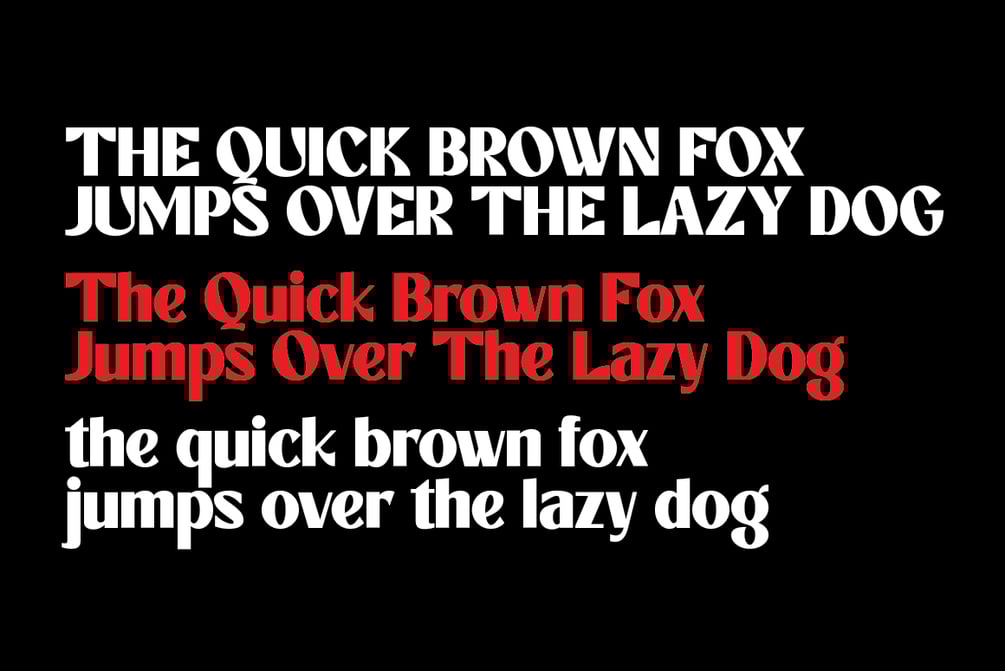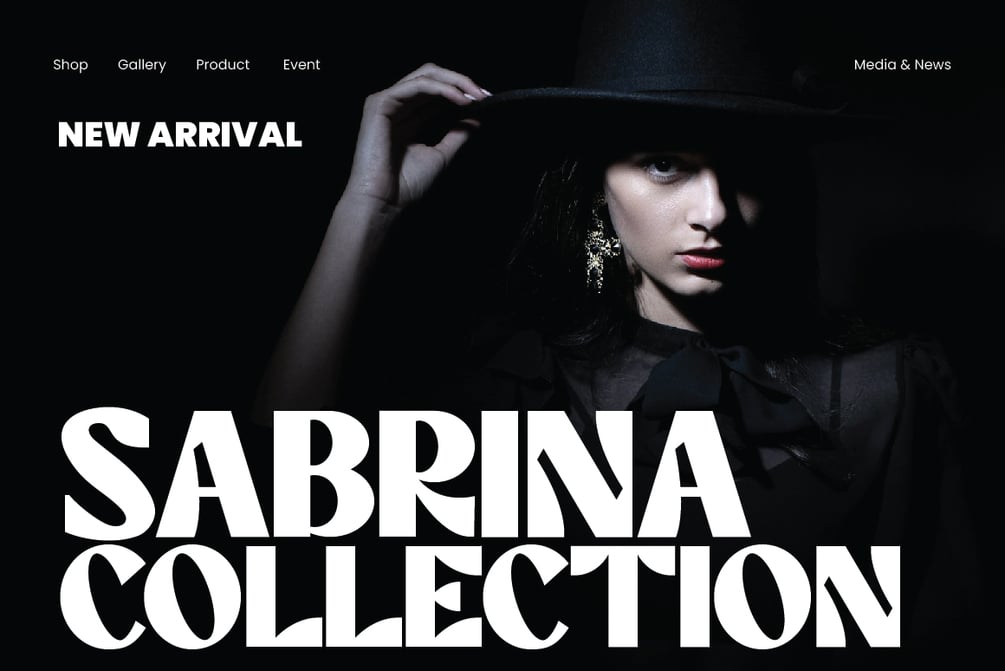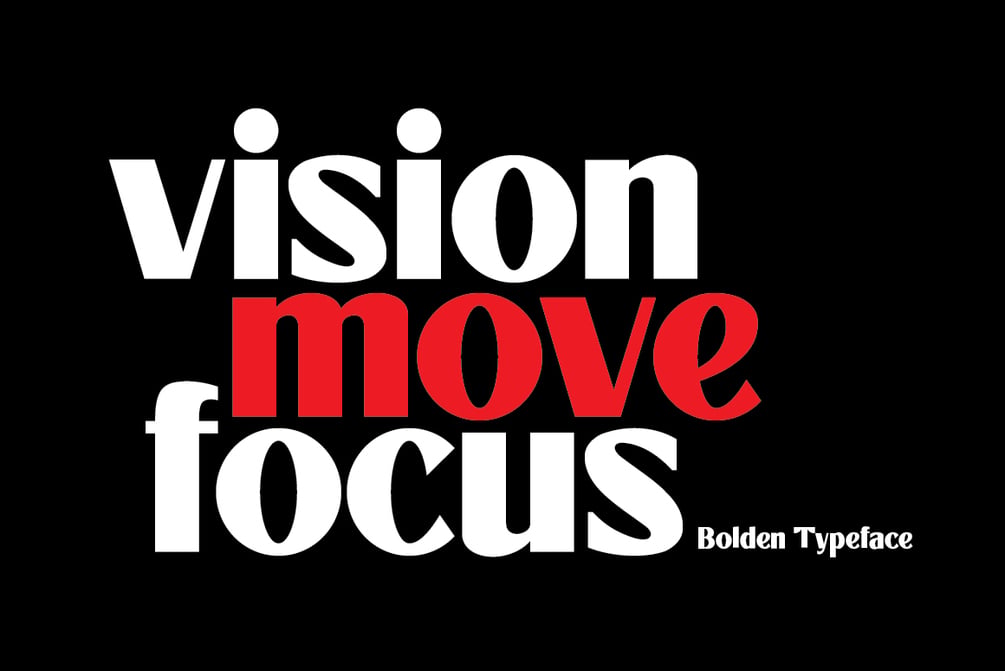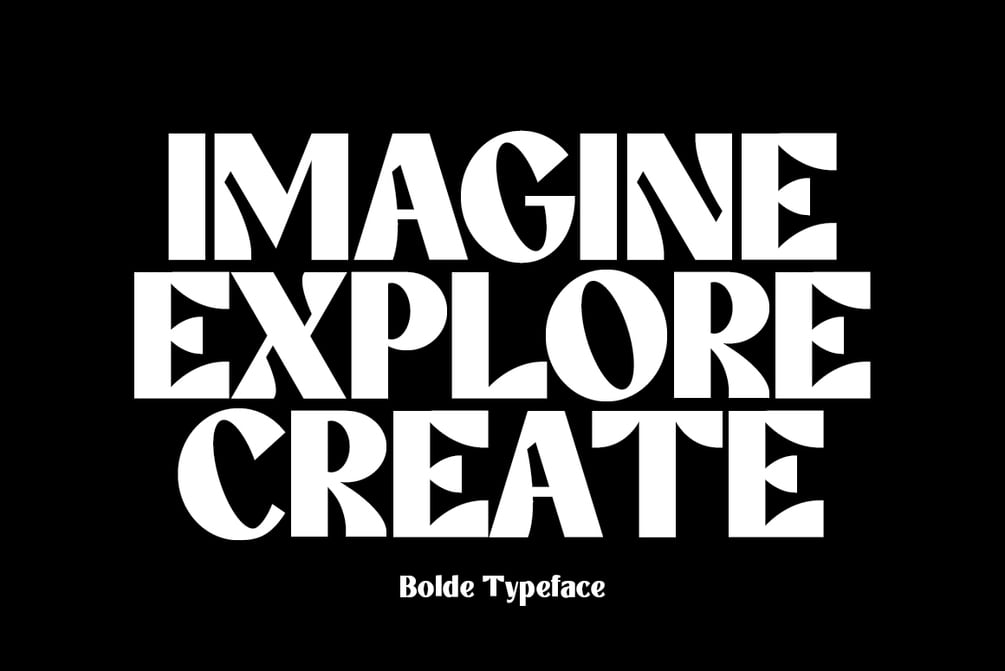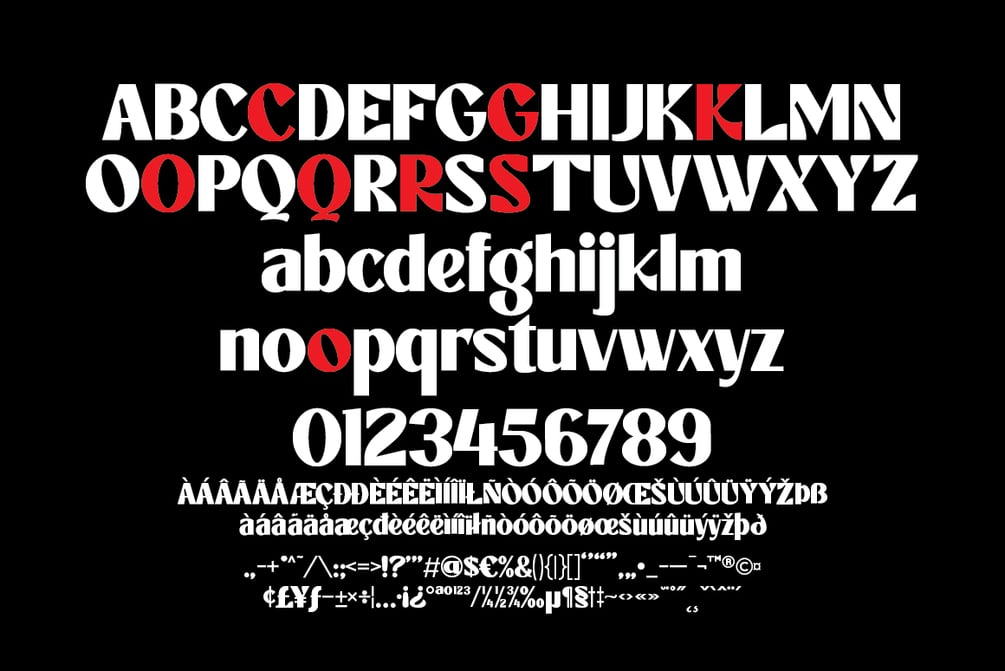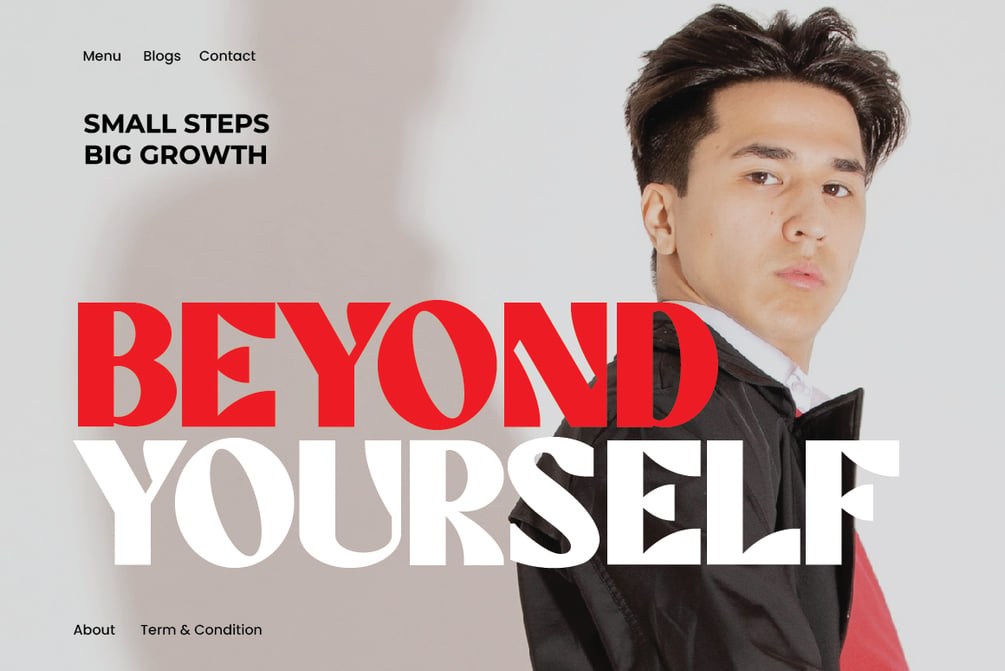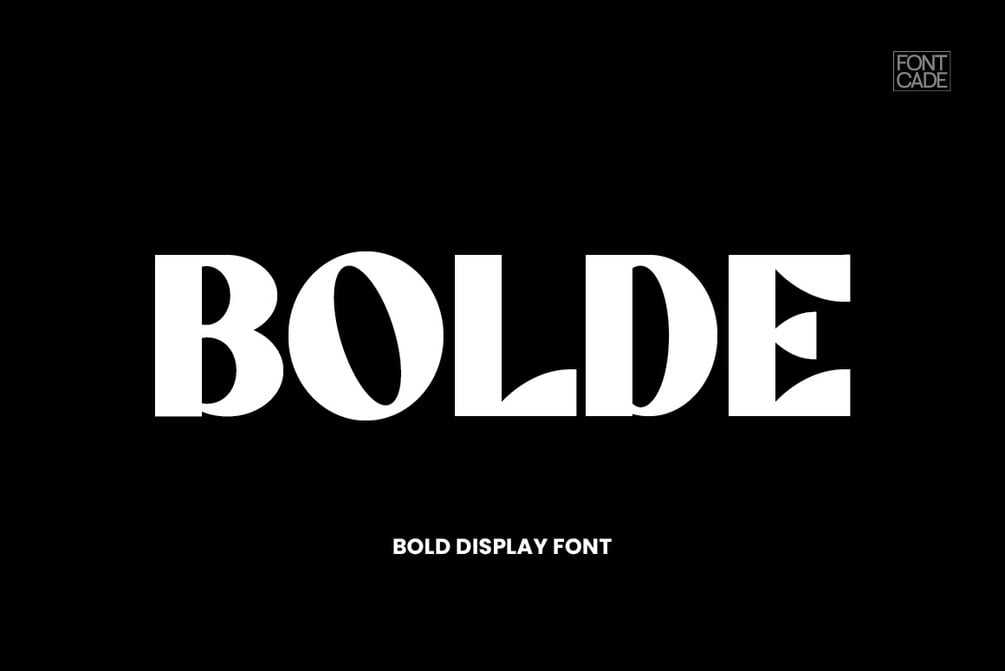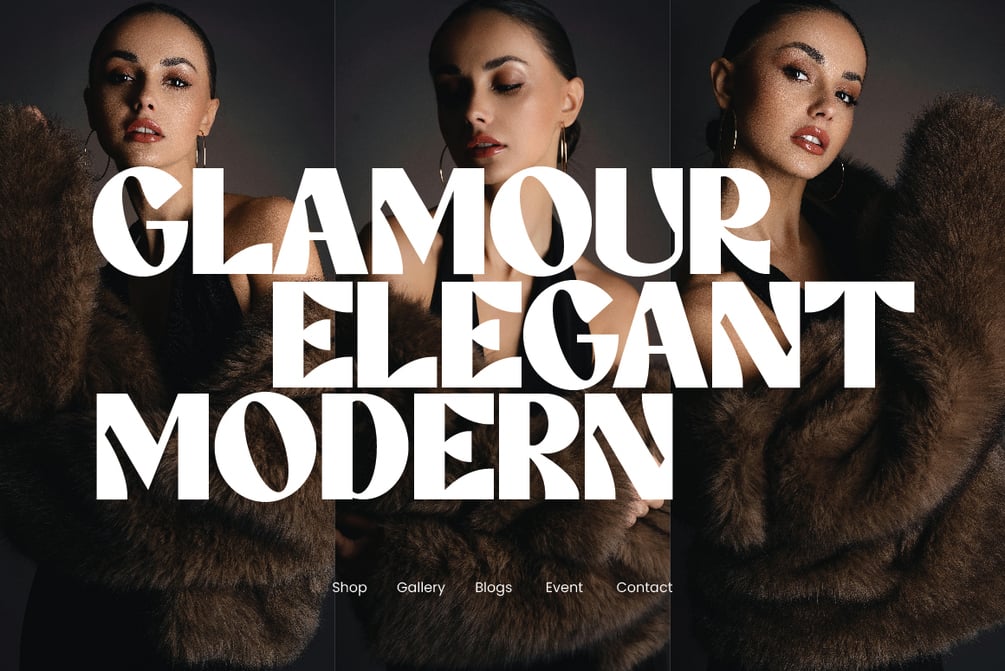
Bolde Font
Bolde is a bold display typeface with geometric shapes and decorative flair. Its sharp cuts and playful curves give it a strong personality, ideal for logo, headlines, posters, and modern branding.
- Uppercase, Lowercase, Numeral & Punctuation
- Stylistic Alternates
- PUA Encoded & Multilingual